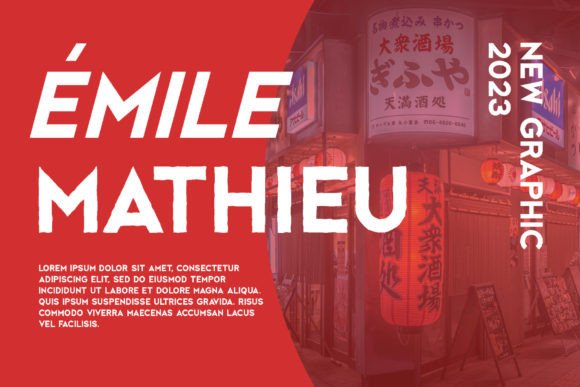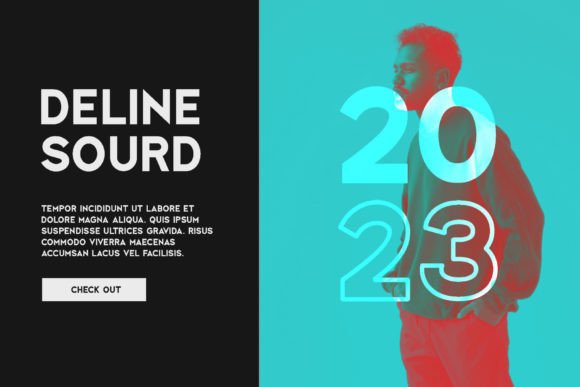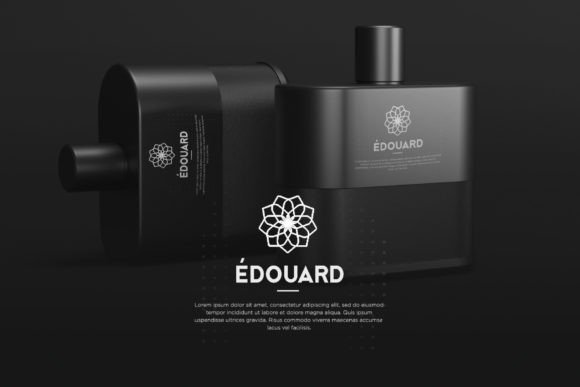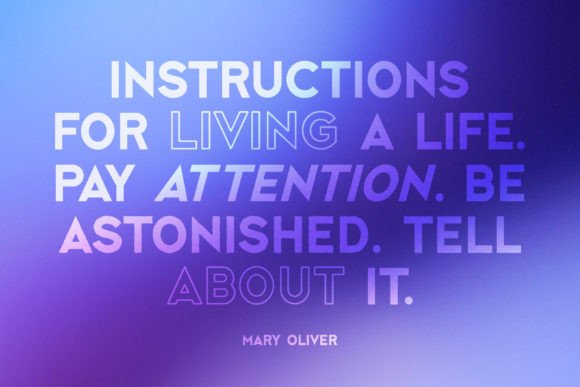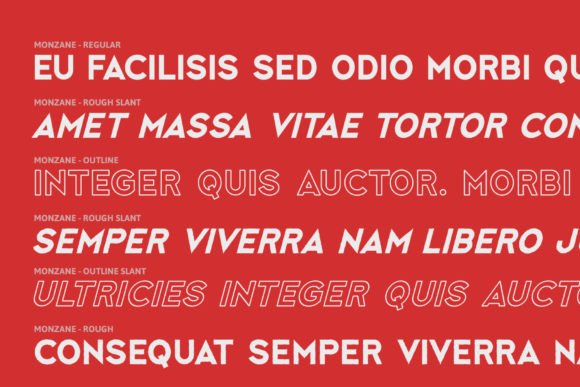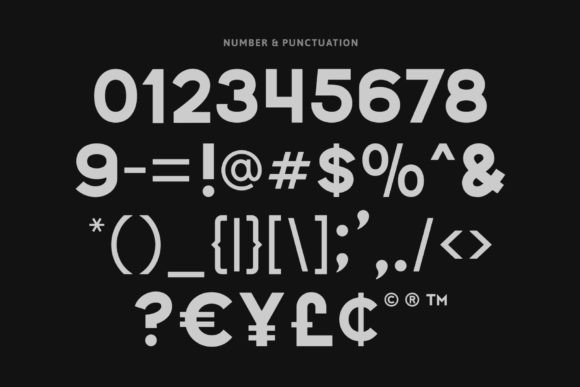
Introduction to Monzane Font
MONZANE is a visually strong and impactful font style consisting only of capital letters.
It is characterized by its bold and eye-catching appearance and can be used in a variety of design applications, including advertising, branding, news headlines, and graphic design projects .
Key Features of Monzane Font
Why Choose Monzane Font?